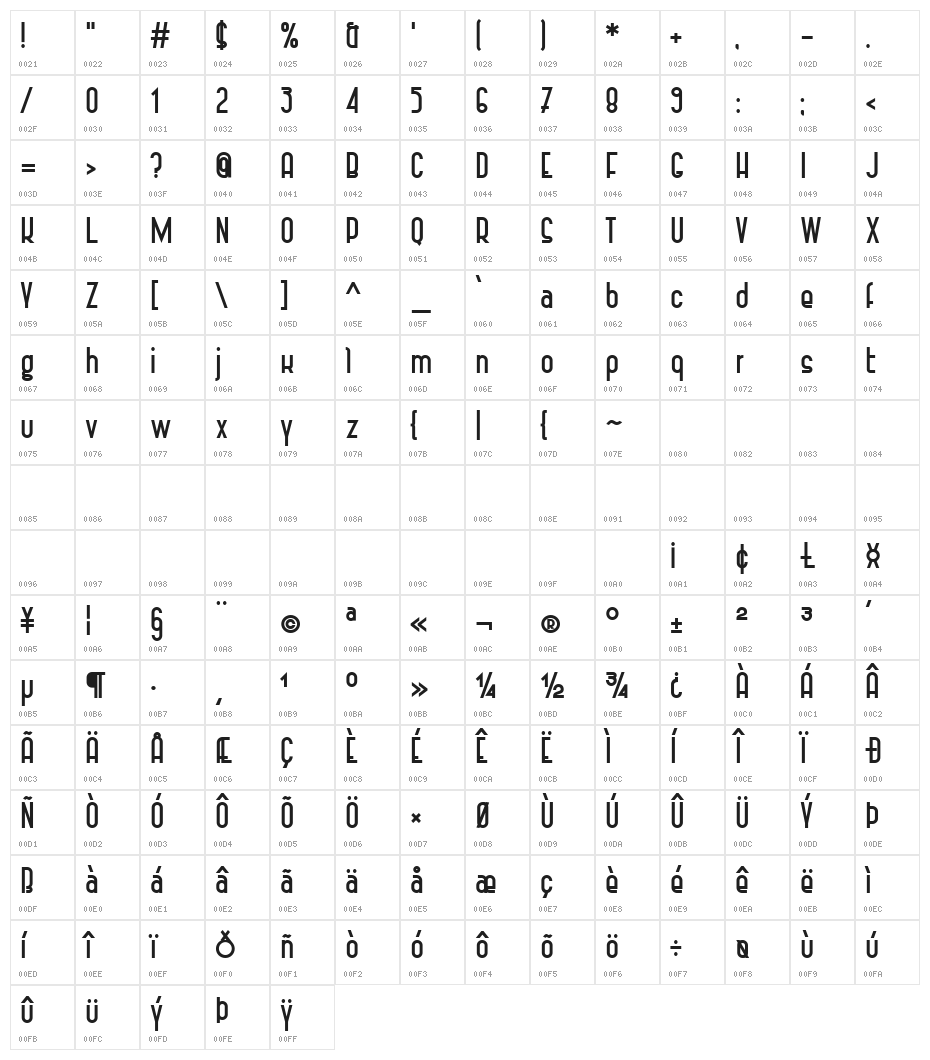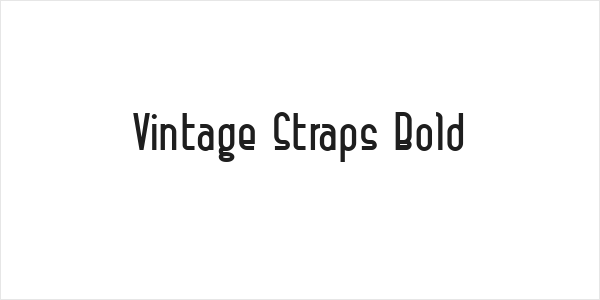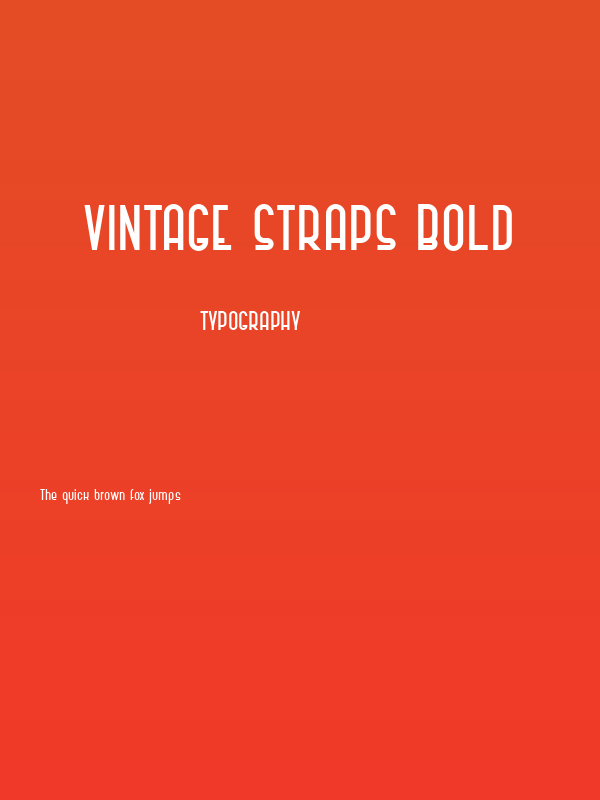
Vintage Straps Bold Font
Vintage Straps Bold Description
This font features a bold and geometric design with a vintage flair. The uppercase letters are tall and narrow, giving a strong and impactful presence. The lowercase letters maintain a consistent style, with rounded edges that soften the overall look. The numerals are clear and easy to read, matching the boldness of the alphabet. Special characters are well-integrated, maintaining the font's cohesive style. The overall appearance is both modern and retro, making it versatile for various design needs.
| Proposed Projects | Ideal for branding, posters, headlines, and retro-themed designs. |